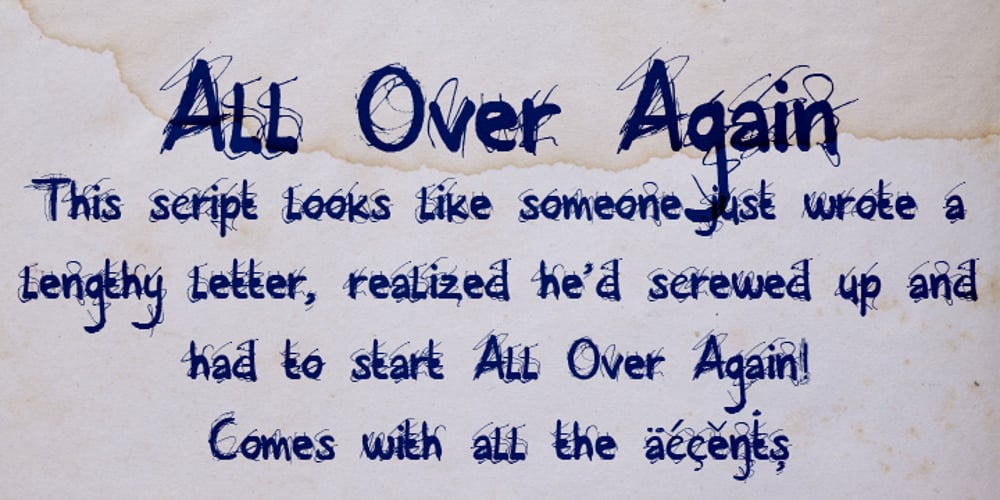
All Over Again Font Family was designed by David Kerkhoff and published by Hanoded. All Over Again contains 1 styles and family package options. All Over Again is a messy, scratchy script that looks like someone wrote a lengthy letter, realized he had screwed up and had to start all over again.